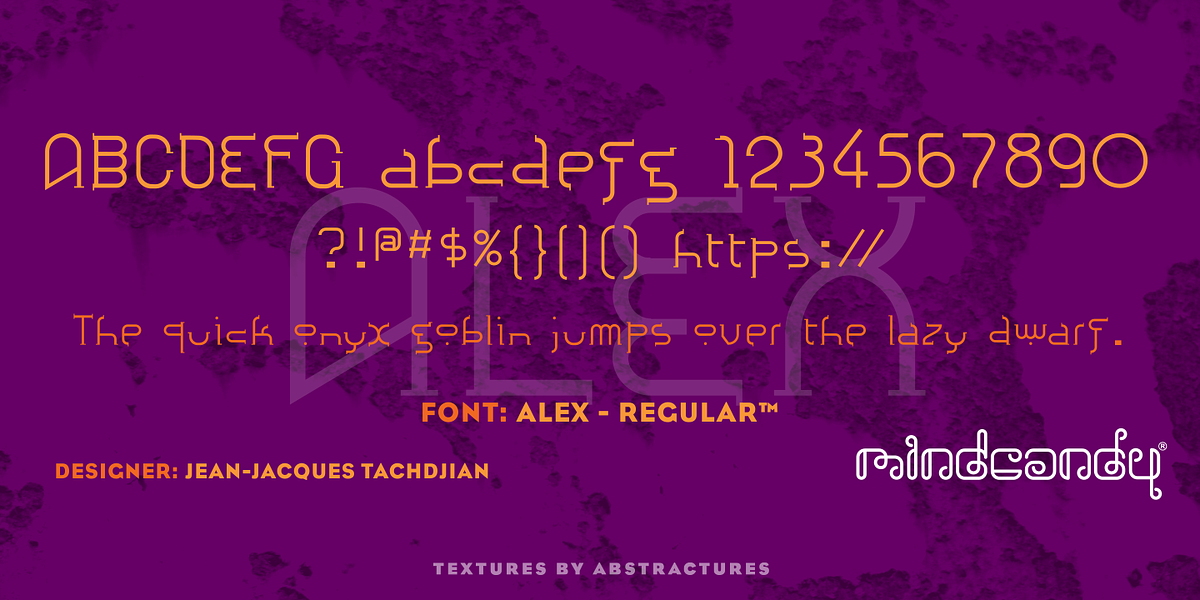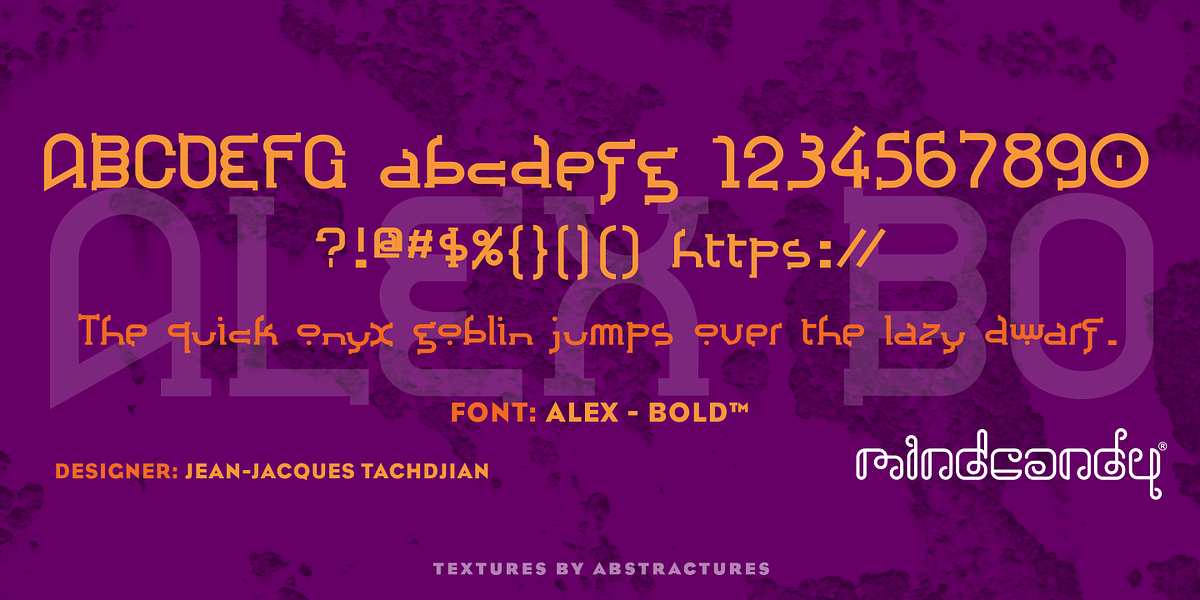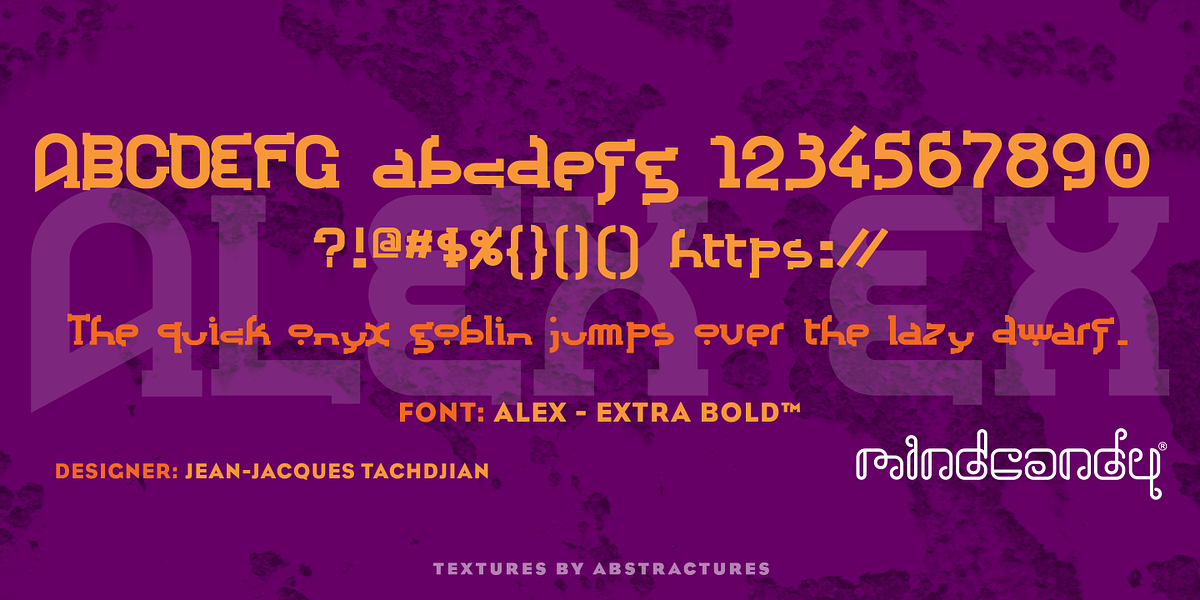
Alex™
The Alex™ Font Family is a unique serif font designed by Jean-Jacques Tachdjian. It is characterized by its uneven character shapes and post-modern aesthetic. The font family includes three weights: Regular, Bold, and Extra Bold.